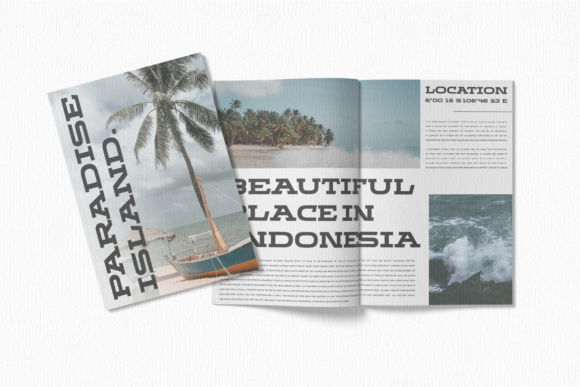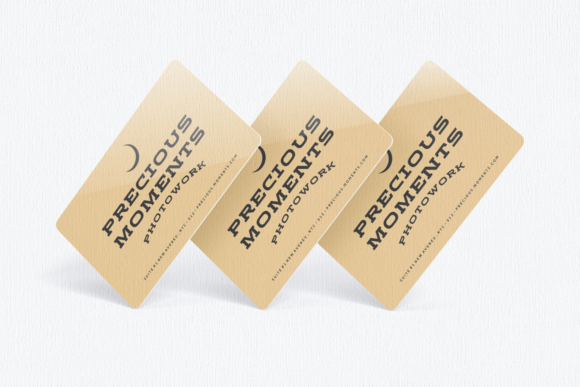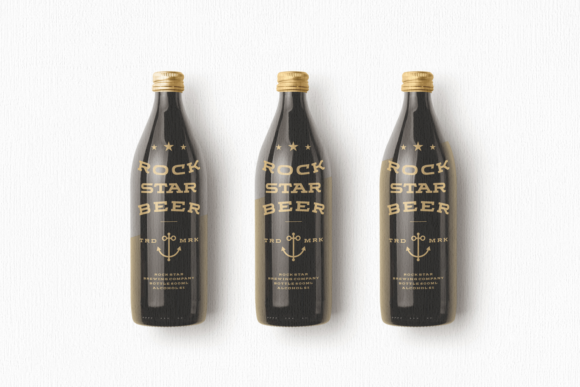
Mesician Font
MESICIAN FONT SPECIMEN
Mesician looks bold, yet sophisticated and features chunky and extended characters that will look particularly adept when used in logos, branding, packaging design, and much more. This masterfully designed slab serif is a true must-have.